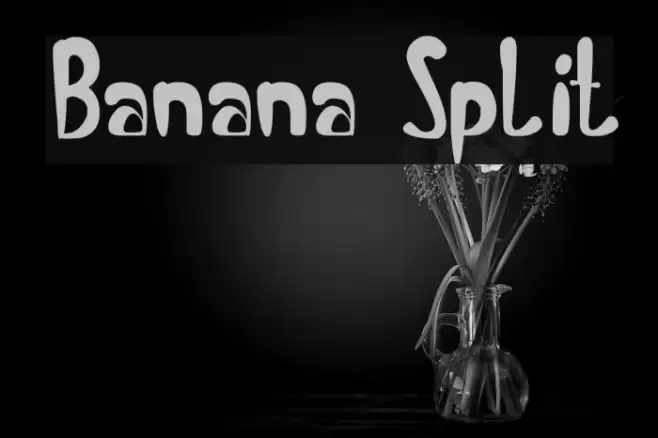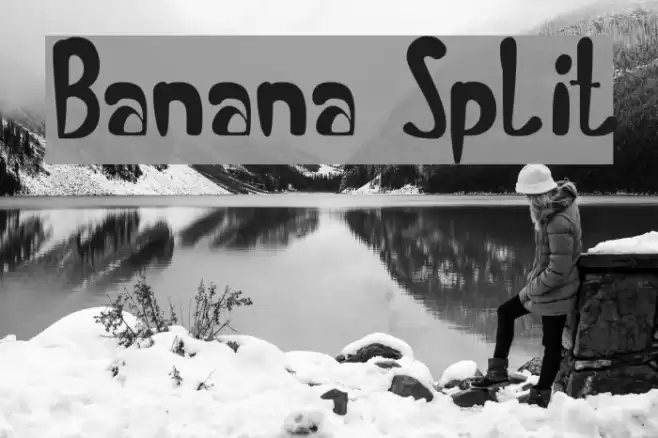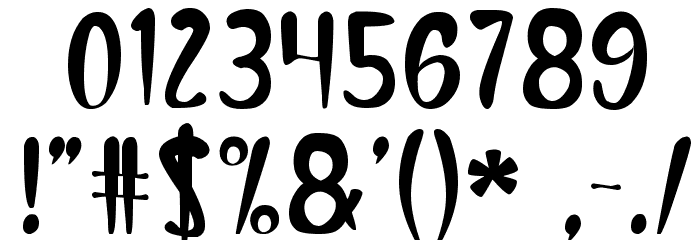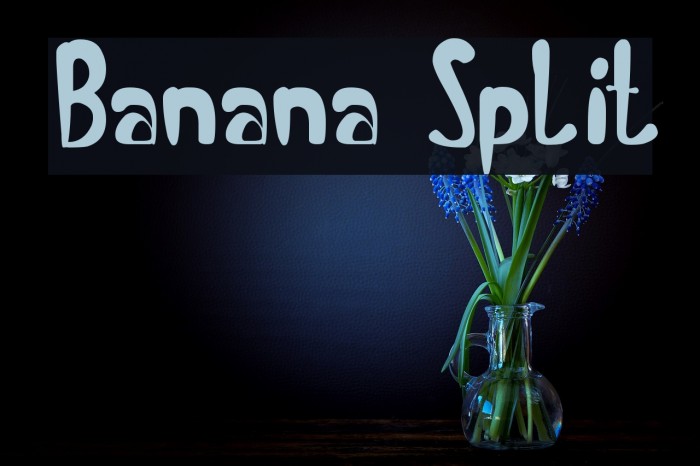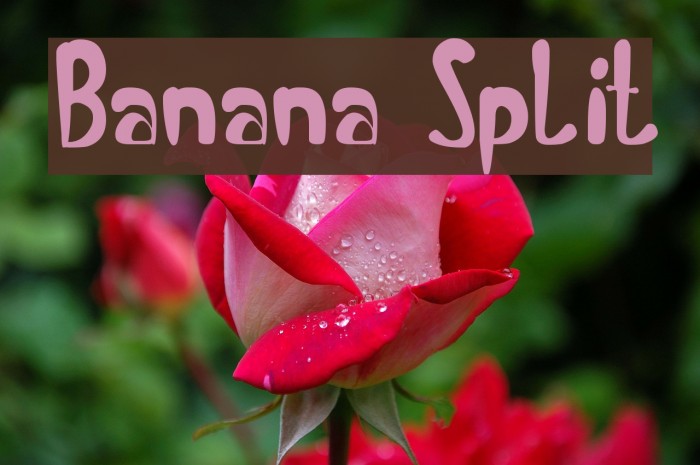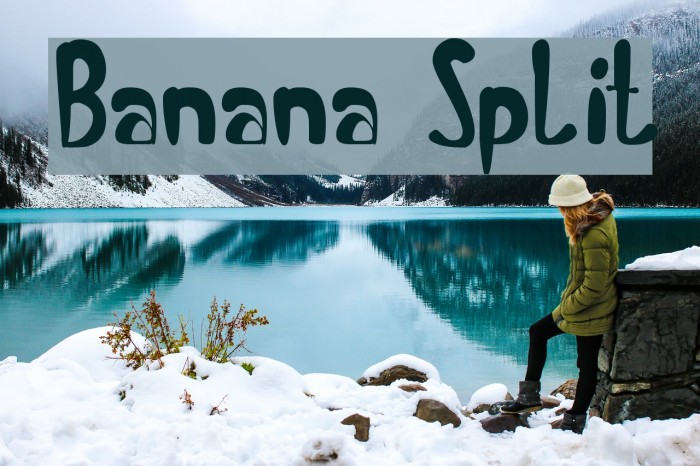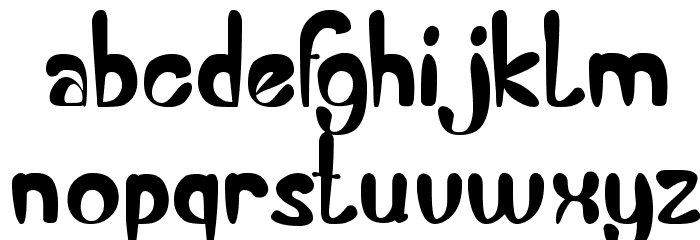
Banana Split Font
Banana Split Description
This playful and whimsical font features bold, rounded characters with a lively and energetic feel. The uppercase letters are slightly taller than the lowercase, adding a sense of movement and fun. The strokes are thick and consistent, giving the font a strong presence. The numbers and special characters maintain the same playful style, making it versatile for various uses. The overall design is reminiscent of hand-drawn lettering, perfect for projects that require a touch of creativity and joy.
A playful, bold font with rounded characters and a whimsical style from Uncategorized fonts.
- Proposed Projects: Ideal for children's books, playful branding, party invitations, and creative posters.
- Overall Style: Playful, Whimsical